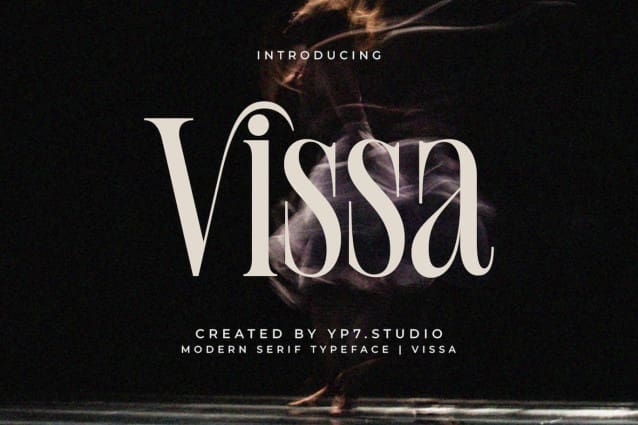
Vissa Font
Vissa Font – Modern Elegant Serif Font, It is perfect for any project looking to add a touch of class. This font is PUA encoded which means you can access all glyphs and swashes effortlessly!